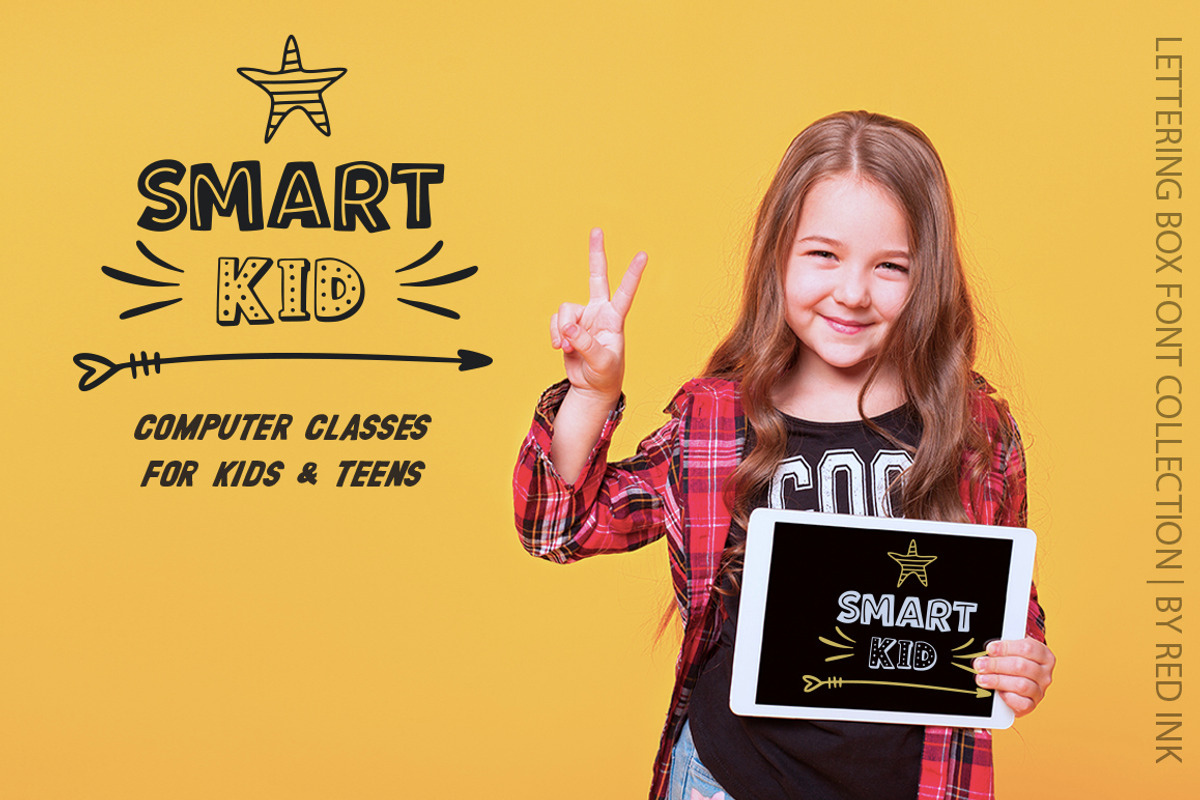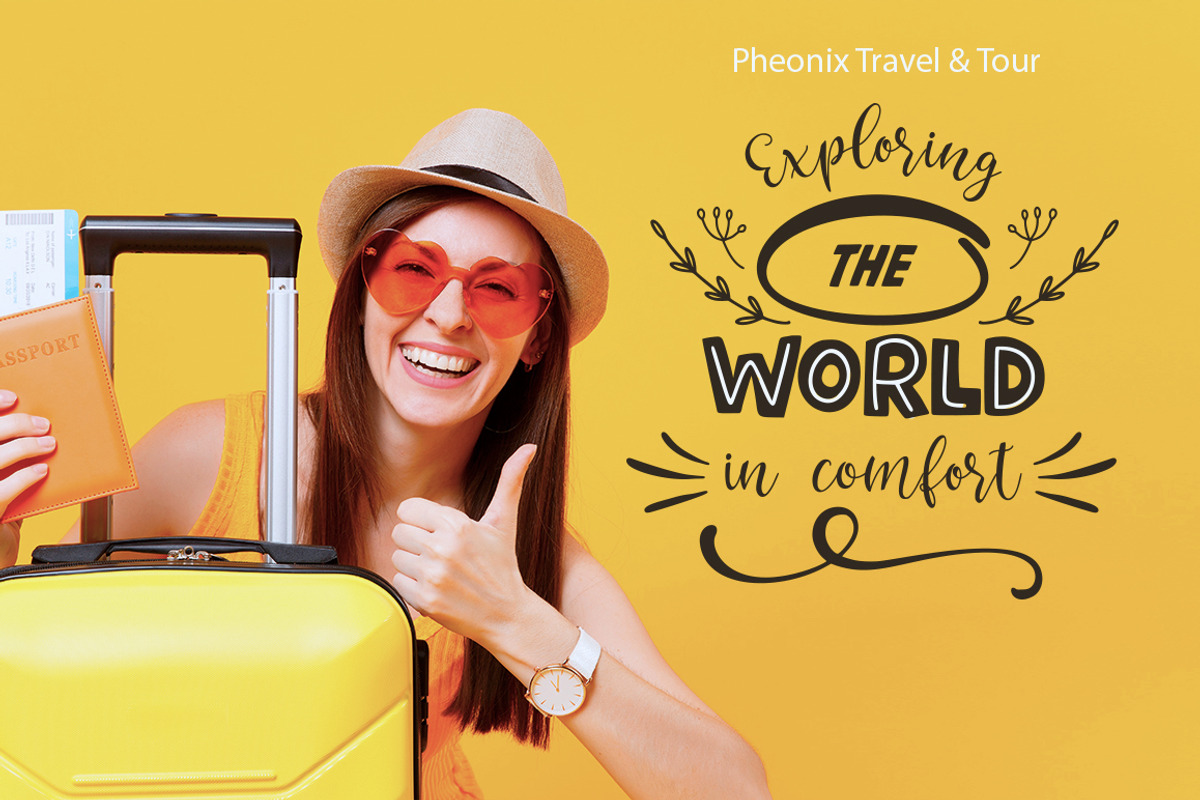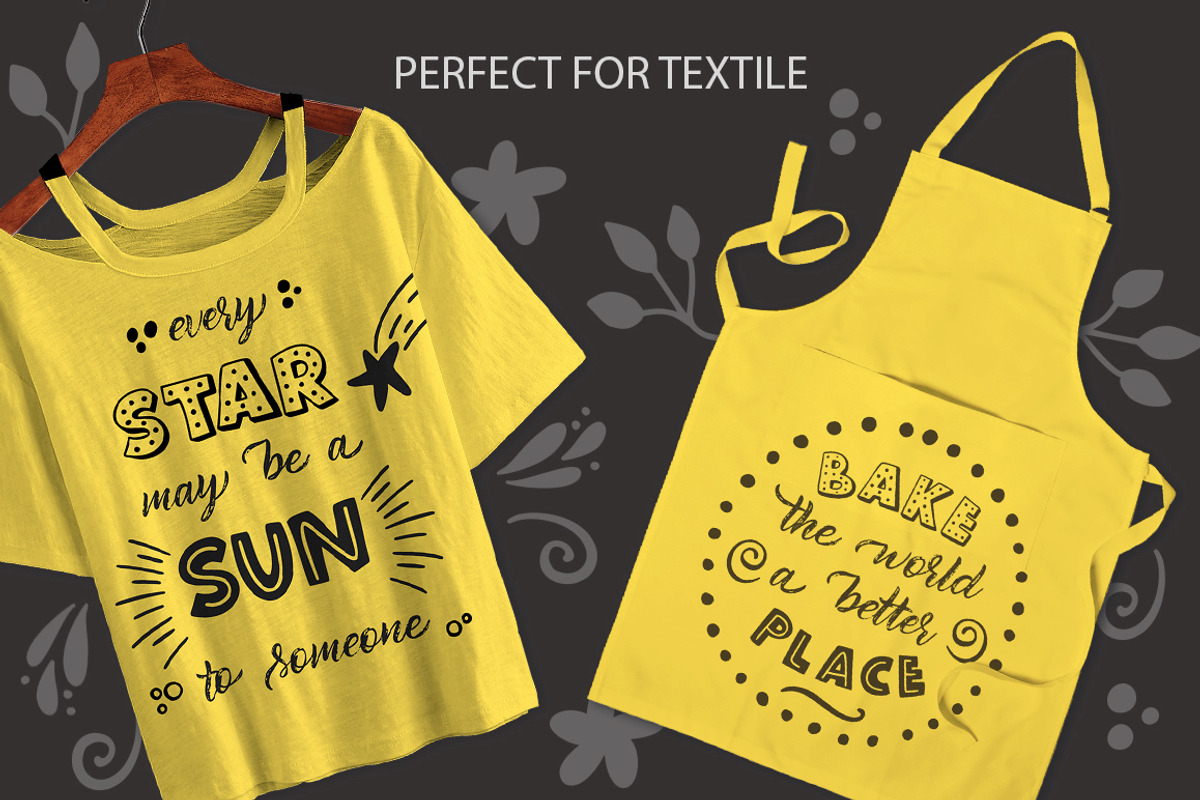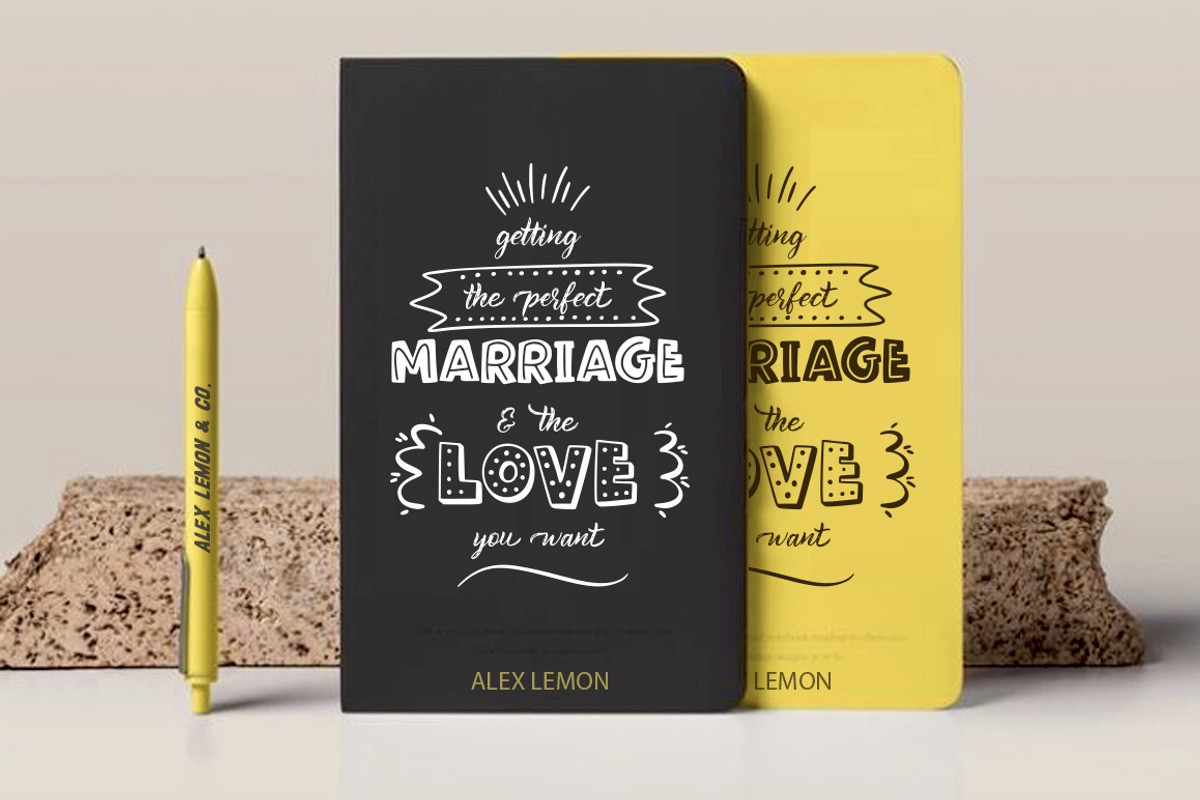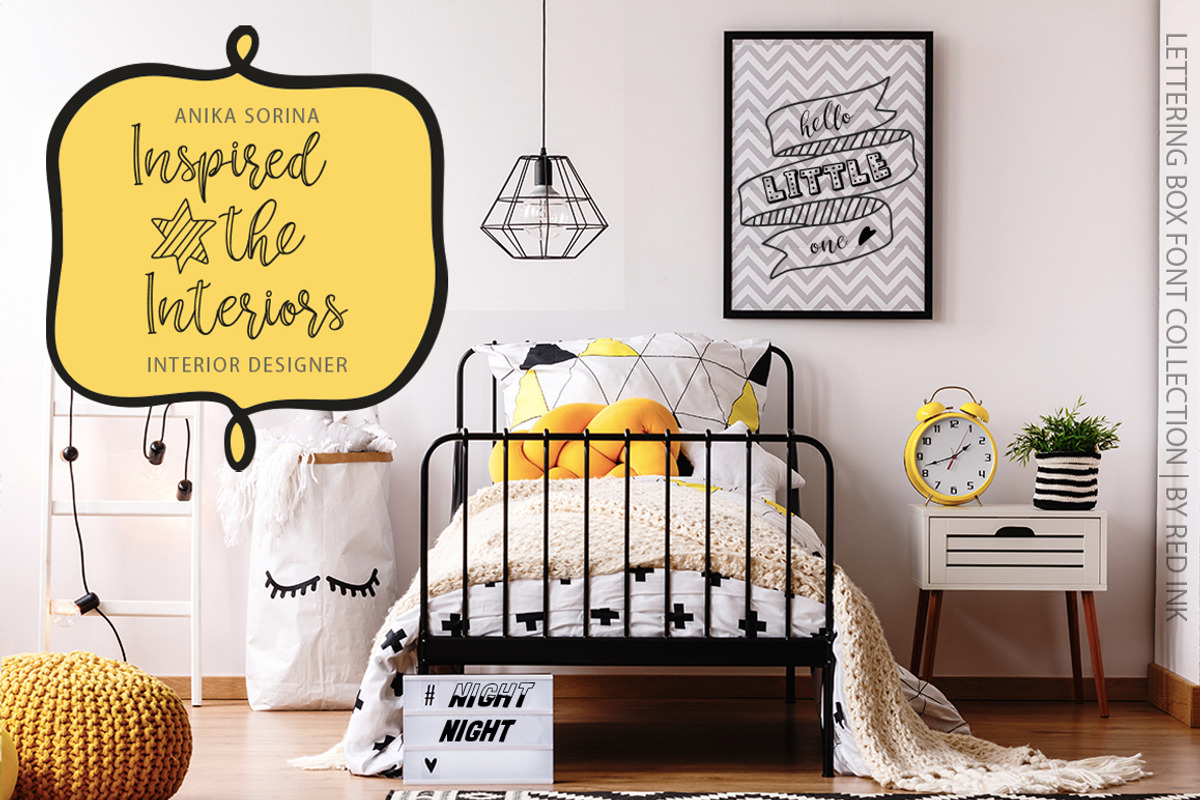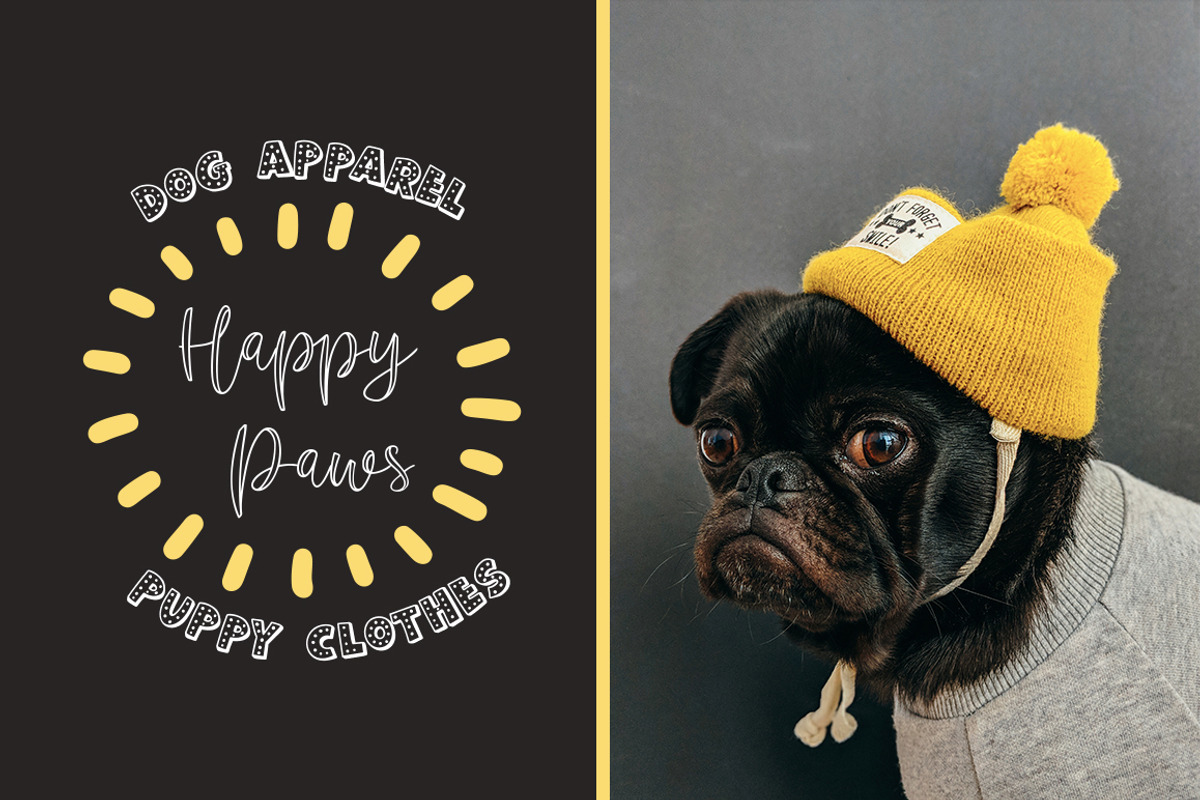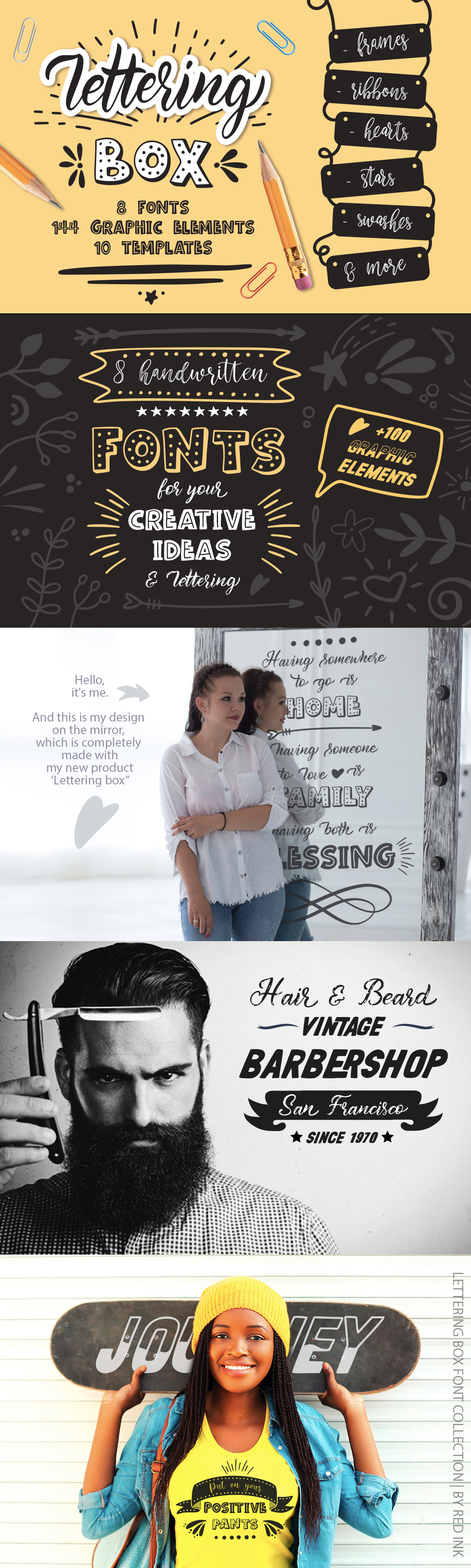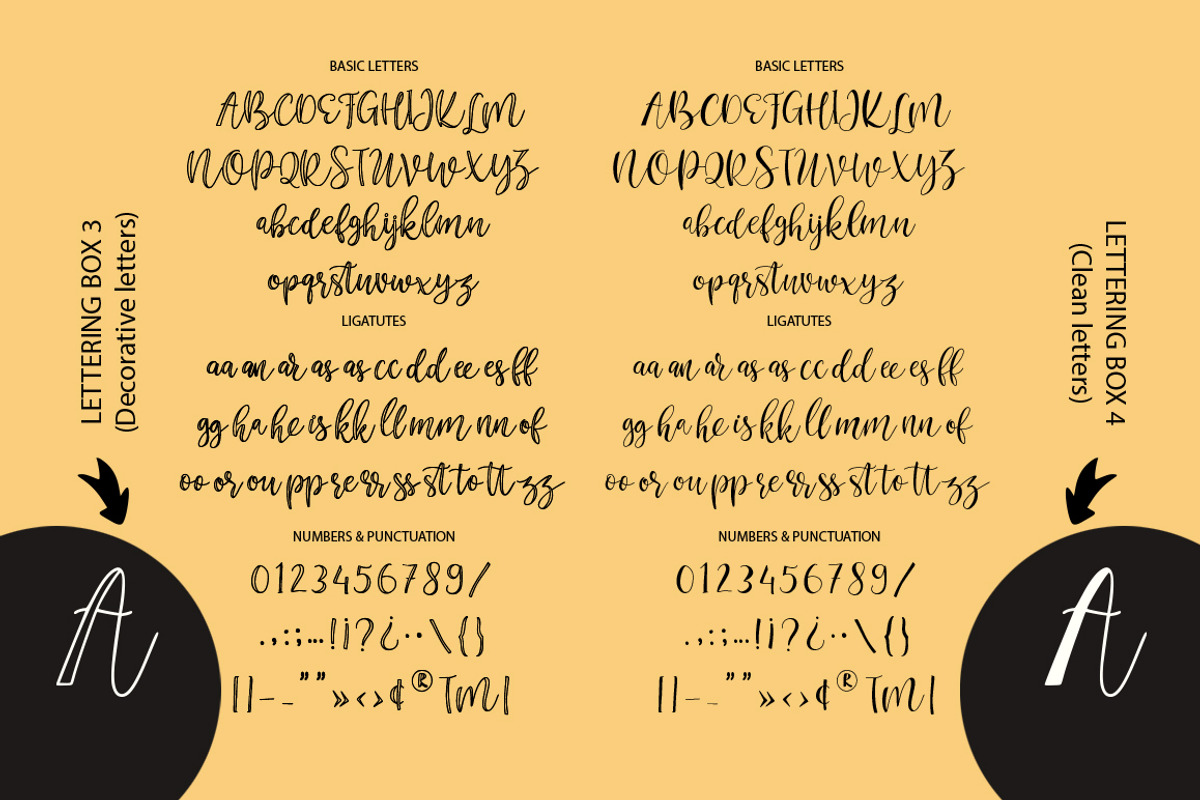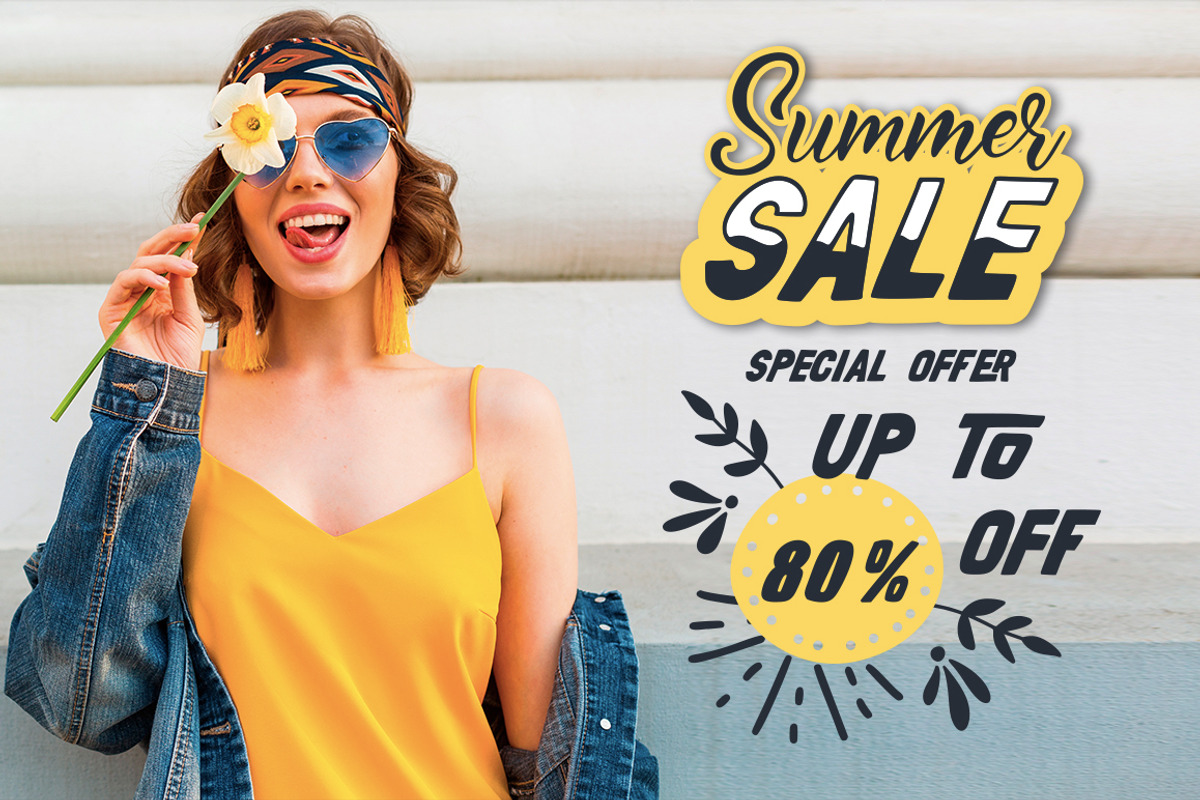
Lettering box. 8 Fonts & Extras!!!
I am happy to present you a large collection of fonts and graphics ‘LETTERING BOX’ for creating designs simply.
'Lettering Box' includes 8 amazing hand drawn fonts, 144 graphic elements and 10 lettering templates.
All fonts and design elements are fully hand-drawn and I also to use this set in my daily work. This is a perfect tool for posters, greeting cards, t-shits, branding materials, quotes and any other amazing projects you are working on.
Each of the fonts includes standard ligatures and is created in such a way, that you can just type, enjoying the variability of letters and combinations and forgetting about the glyph panel. All fonts come with PUA Unicode that gives you full access to the ligatures software that doesn't support the extra characters. Some fonts also include starting and ending letters and it’s all together giving real handdrawn feel.
You will also receive 144 graphic elements (stars, hearts, frames, arrows, floral elements, ribbons, abstraction, swashes and more). This is all you need to create unique lettering designs. Fonts and graphic elements perfectly complement each other. Combining them you can get really amazing results.
Bonus Yo'll get 10 templates to create lettering quotes or logos quick and easy. I hope that you will love using this ‘Lettering box’ in your work as well as me.